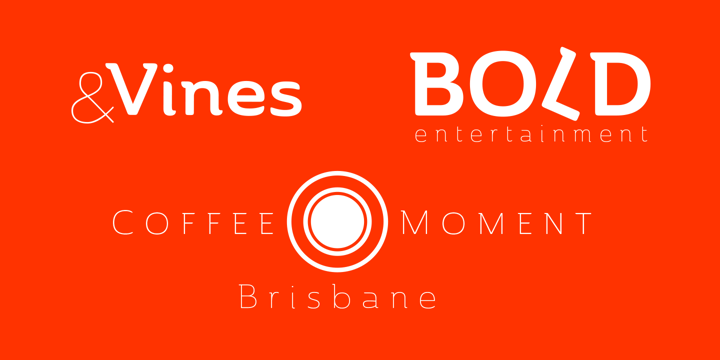
Ainslie
Ainslie™
Ainslie Font Family was designed by Jeremy Dooley and published by insigne. Ainslie contains 42 styles and family package options.
About Ainslie Font Family
Get your Aussie on! The new typeface, Ainslie, with its mix of influences from Oz, makes its mark as the first semi-serif from insigne Design. Ainslie, named for Mt. Ainslie and Canberra’s inner suburb of the same name, was originally developed for the Canberra Australia Centennial Typeface Competition. Canberra is Australia’s capital, and it’s a planned city designed by American Walter Burley Griffin, a contemporary and one-time associate of Frank Lloyd Wright. Griffin’s plan involved a distinctly geometric design with several focal points--one of which was Mt. Ainslie. This same purely geometric scheme is now the basis for insigne’s new release. Similar to the Chatype project in its scope, its challenge, and the way its concept was developed, Ainslie incorporates influences from Canberra and surrounding areas to form a font that is uniquely Australian. In comparison, Chatype was developed for the city of Chattanooga, Tennessee by insigne in conjunction with designer Robbie de Villiers. Chatype took elements from Chattanooga’s industrial character and Cherokee past and merged them with the area’s technological influences. Likewise, Ainslie takes Canberra’s distinct, geometric design and blends it with the organic, flowing effect of aboriginal art. Add in touches from the smooth, aerodynamic design of the boomerang and Ainslie gives you a look uniquely Australian yet usable in a wide range of applications. The fashionable typeface includes a multitude of alternates that can be accessed in any OpenType-enabled application. These stylish alternates along with a number of swashes as well as meticulously refined details with ball terminals and alternate titling caps keep the font well accessorized. Also included are capital swash alternates, old style figures, and small caps. Peruse the PDF brochure to see these features in action. OpenType enabled applications such as the Adobe suite or Quark can take full advantage of the automatic replacing ligatures and alternates. This family also offers the glyphs to support a wide range of languages. While Ainslie wasn't selected as the final font in the Canberra competition, the outcome allowed for additional adjustments to the typeface. Several approaches were attempted for the final product including a technological hexagonal concept, which may still be developed to another form later. Some of the organic forms were removed and substituted with more abrupt endings, leaving the face looking pretty spiffy and a fair bit more legible. In the end, Ainslie was pulled back to the basic forms from which it was started. Give it a go for your next project. It’s guaranteed to be anything but a barbeque stopper.